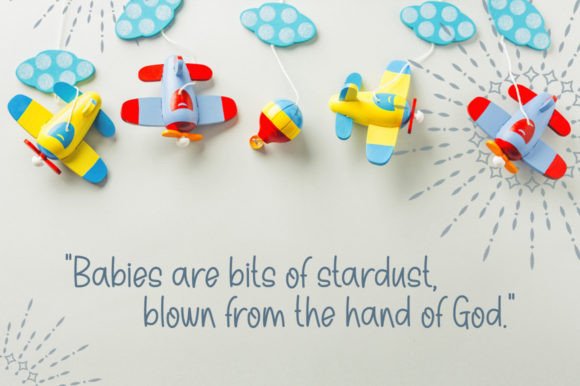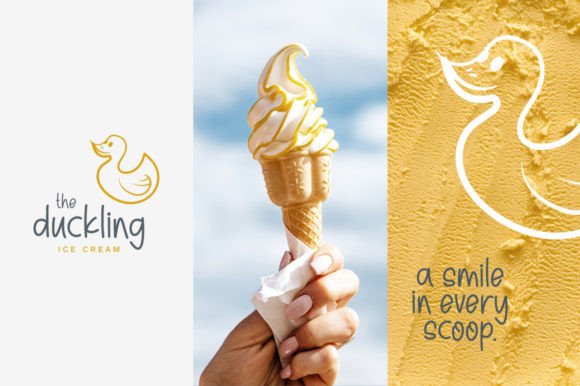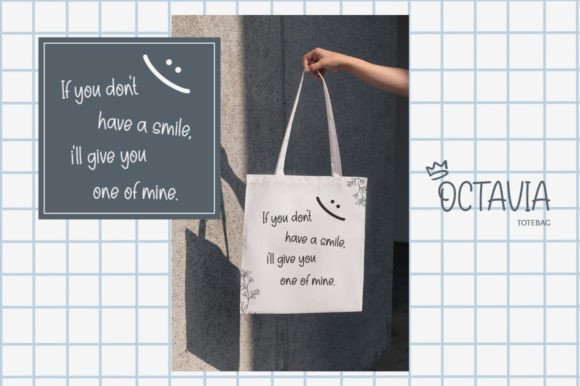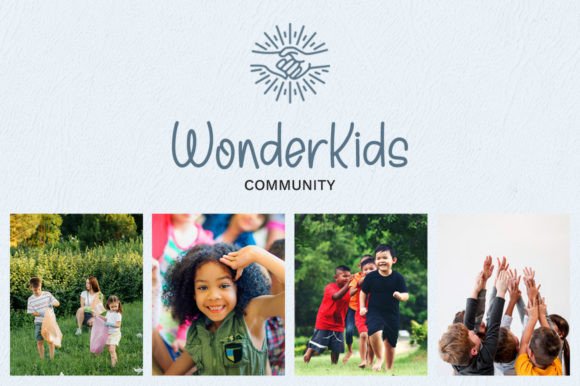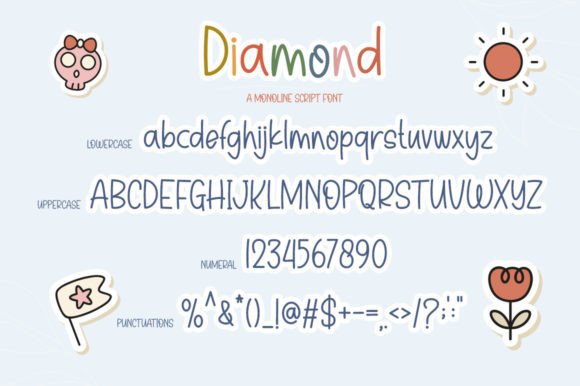
The Sparkle of Diamond Font: A Designer’s New Best Friend
I still remember the time I was working on a project for a client’s birthday party invitation. I had all the design elements ready, but something was missing – the perfect font. I scrolled through my font library, but nothing seemed to fit the playful and elegant vibe I was going for. That’s when I stumbled upon Diamond Font, and it instantly became my go-to choice. In this article, I’ll share my experience with Diamond Font, its features, and how to make the most of it in your designs.
An Honest Review of Diamond Font
Diamond Font has quickly become a favorite in my font collection, and here’s why:
- ✨ Fun and playful vibe: Diamond Font has a unique, handwritten look that’s perfect for designs that need a touch of personality.
- ✅ Highly legible: Despite its playful nature, Diamond Font is easy to read, making it suitable for body text and headings.
- 💕 Customizable: With OpenType features and glyphs, you can customize Diamond Font to fit your design needs.
However, no font is perfect, and Diamond Font has a few quirks:
- 🤔 Limited use in formal designs: While Diamond Font is versatile, it may not be the best choice for formal designs, such as business reports or academic papers.
- ⚠️ Some letter combinations: As with any font, some letter combinations may not look perfect, but this can be easily fixed with manual kerning.
The Story Behind Diamond Font
Diamond Font was created with the intention of providing a fun and smart-looking handwritten font for designers. Its creator aimed to craft a font that would add a touch of personality to any design, from invitations to logos. With its unique look and customizable features, Diamond Font has become a popular choice among designers.
| What type of designs is Diamond Font best suited for? | Diamond Font is perfect for designs that need a touch of personality, such as invitations, thank you cards, quotes, greeting cards, logos, and business cards. |
| Is Diamond Font suitable for body text? | Yes, Diamond Font is highly legible and can be used for body text, but it’s best used in moderation. |